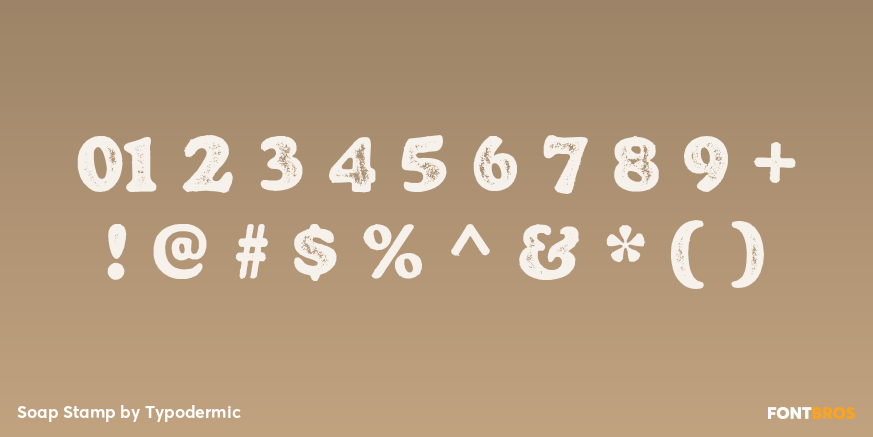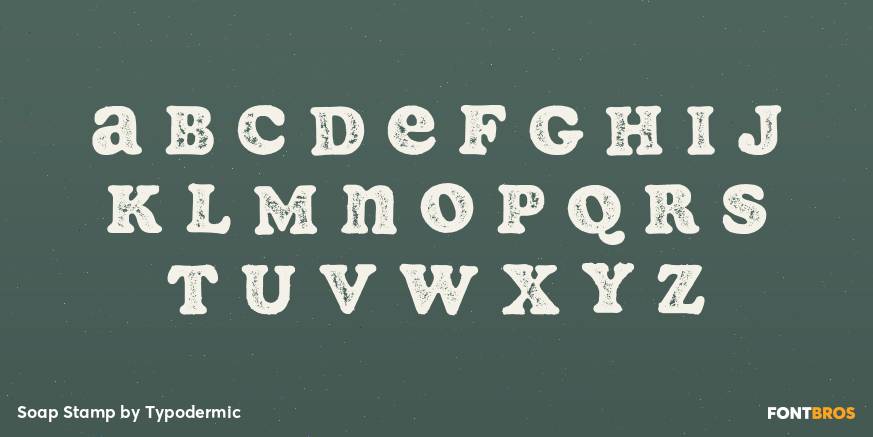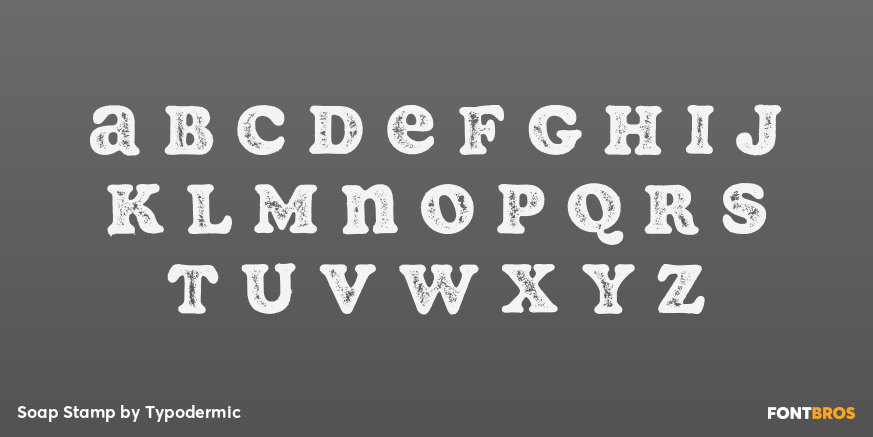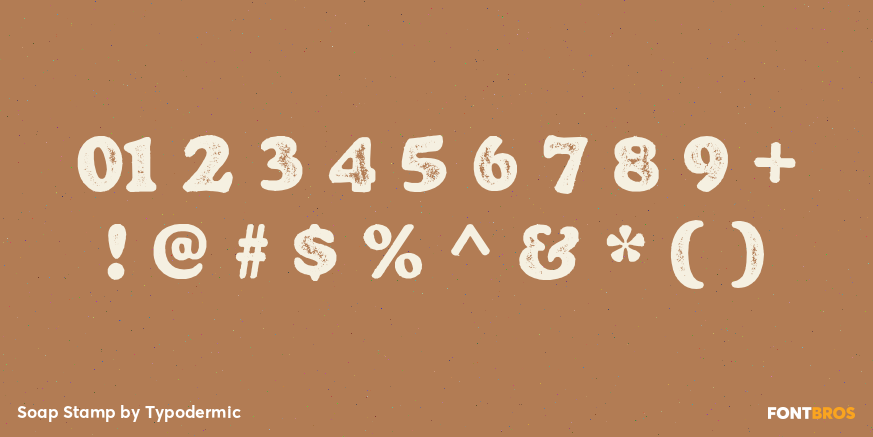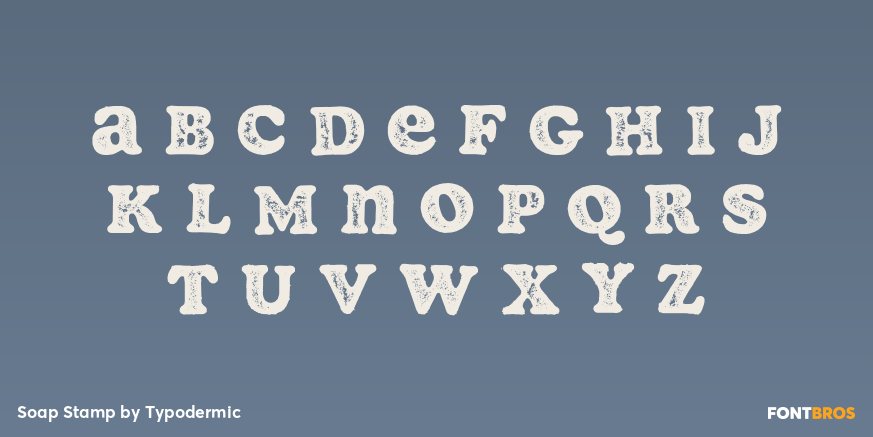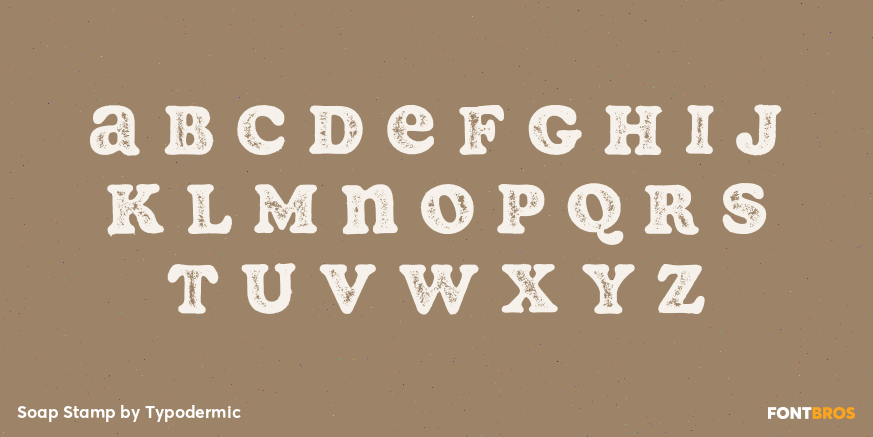
Soap Stamp
Buy NowSoap Stamp keeps the family's rounded unicase silhouette relatively intact, then breaks the dark surfaces with scattered flecks and patches of missing ink. The uneven impression feels pressed onto paper or packaging by a worn stamp, creating a more contained print texture than the strongly eroded edges of Soap Shirt.
Use Soap Stamp for carton labels, bakery and snack packaging, record sleeves, café graphics, vintage shop signs, event badges, and short promotional headings that need physical ink character. Give the texture enough size and contrast to remain visible, and use Soap Regular for clean supporting information or Soap Shirt when the design calls for rougher, fabric-like wear.